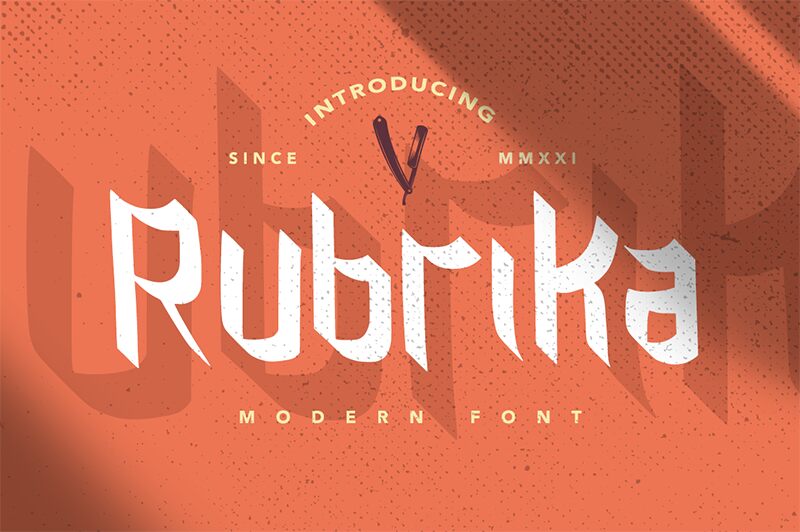
Rubrika, by Vultype Co., is a free blackletter-inflected display font with tall caps, clipped curves, and blade-like points that keep the medieval reference feeling stripped down and current. The letters mix broad, rounded bodies with sharp descending cuts, so the whole font feels ceremonial but not fussy.
It fits poster work, record sleeves, fashion branding, title cards, and event graphics where a short line needs a severe, emblematic voice. As a free font, it also makes sense for cover lines, monograms, and logo sketches, because those pointed endings and compressed rhythm give even a few letters a strong stamped presence.